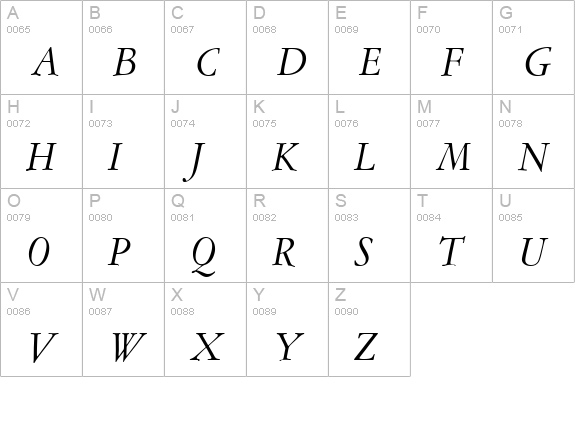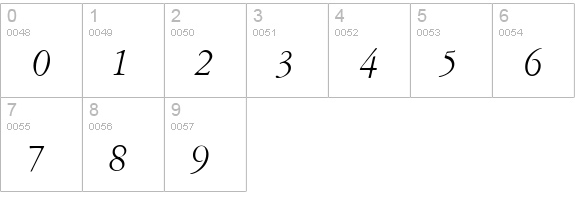
Amsterdamer-Garamont-Italic is a distinctive, italic variant in the Amsterdamer typeface family \xE2\x80\x94 well suited to design and typography projects.
The Amsterdamer-Garamont-Italic font exudes elegance and sophistication with its graceful, slanted letterforms. Its delicate curves and refined serifs add a touch of sophistication to any design project. Whether you're creating wedding invitations, elegant branding materials, or stylish editorial layouts, this font is sure to elevate your work to the next level. Best of all, the Amsterdamer-Garamont-Italic font is free to download at FontsMarket.com. Simply visit the website to access this exquisite typeface and incorporate its timeless beauty into your projects. Don't miss out on the opportunity to add a touch of class to your designs with this stunning font.